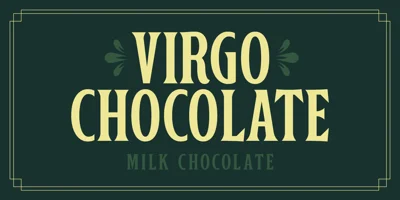
VTC Horoscope Font
VTC Horoscope Font is perfect for mystical branding, astrology websites, tarot card designs, spiritual book covers, zodiac-themed graphics, fortune telling materials, metaphysical shop signage, and celestial event promotions. This enchanting typeface excels in projects requiring mystical atmosphere and cosmic appeal where otherworldly aesthetics are essential.
What makes VTC Horoscope Font exciting is its captivating blend of celestial mystery and readable elegance, creating an otherworldly yet accessible appearance. The font features distinctive letterforms with cosmic-inspired details and flowing curves that evoke the magic of the stars and ancient wisdom. Its mystical character makes it perfect for brands and projects in the spiritual, astrological, and metaphysical sectors.
VTC Horoscope Font family includes various weights and decorative elements that enhance its mystical appeal. The family typically offers regular and bold variations, along with special celestial symbols, ornamental characters, and mystical dingbats that complement astrology and spiritual design themes perfectly.
Whether you're designing astrology apps, spiritual wellness branding, or mystical event materials, VTC Horoscope Font provides the perfect cosmic solution for projects demanding supernatural character. This font's ethereal beauty and mystical presence make it ideal for connecting with audiences interested in spirituality and cosmic consciousness.
The carefully crafted letterforms and celestial-inspired details of VTC Horoscope Font create an enchanting reading experience while maintaining clarity across different sizes. Its unique personality and spiritual aesthetic make it an essential tool for designers working in the metaphysical and wellness industries. Download VTC Horoscope Font today and bring cosmic magic to your creative projects with this extraordinary mystical typeface.